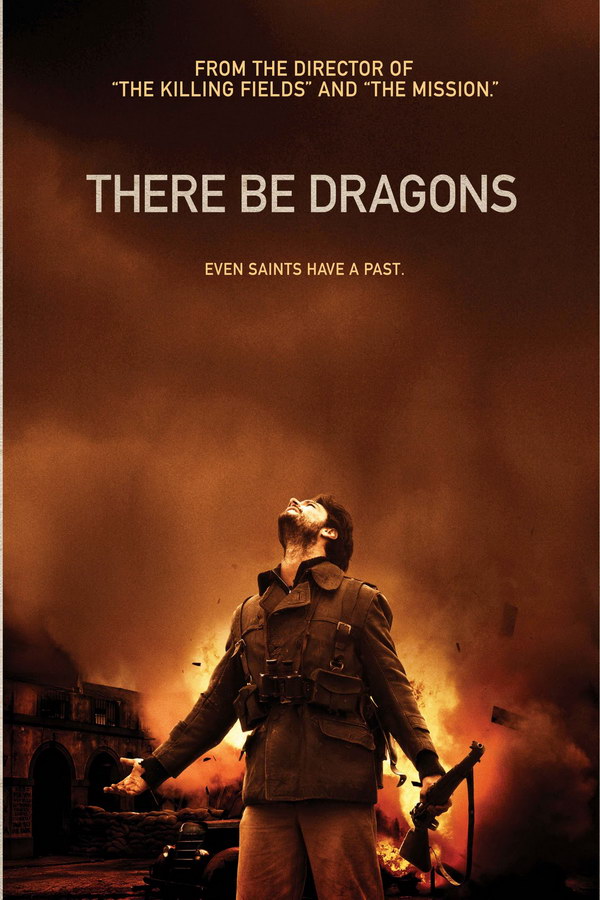
Fonts in UseThere Be Dragons is a historical drama film that explores the Spanish Civil War and the life of St. Josemaria Escriva, the founder of Opus Dei.
The title There Be Dragons on the movie poster is likely set in Din 1451 Mittelschrift, a realistic sans-serif font set by the German standards organization DIN in 1931. This font is available for purchase here.